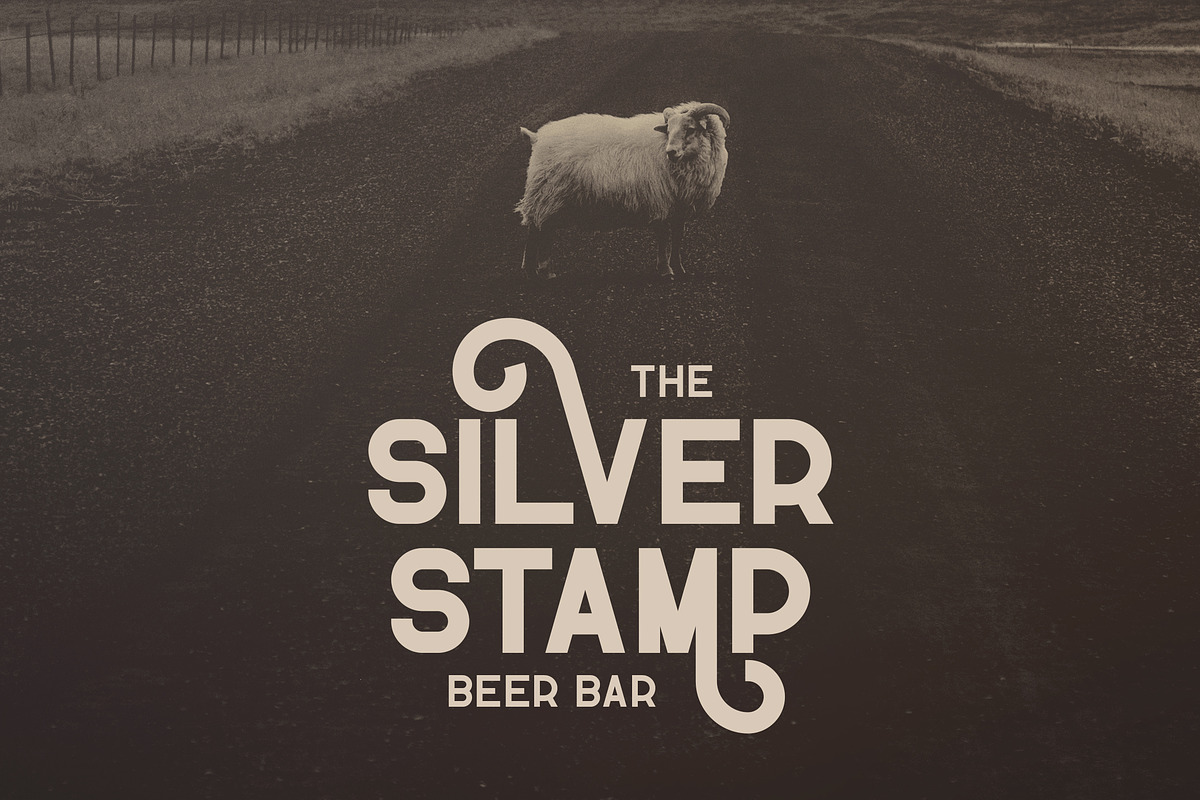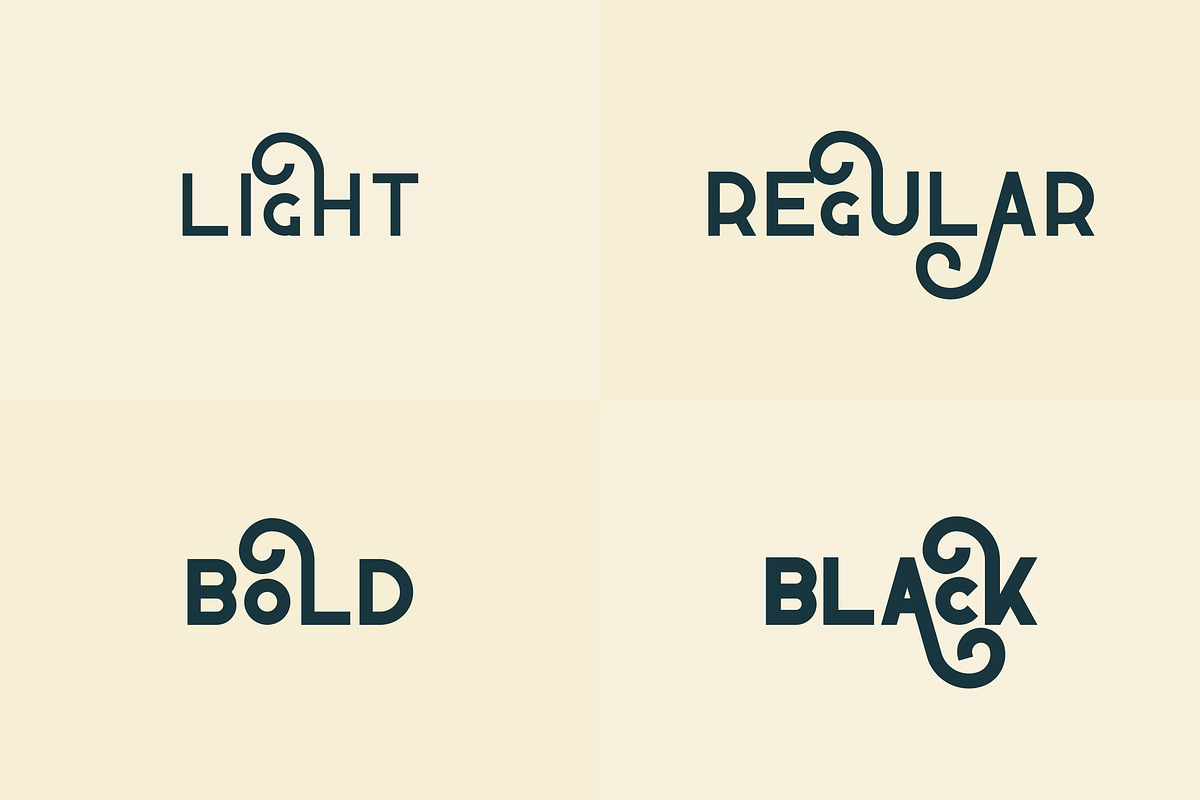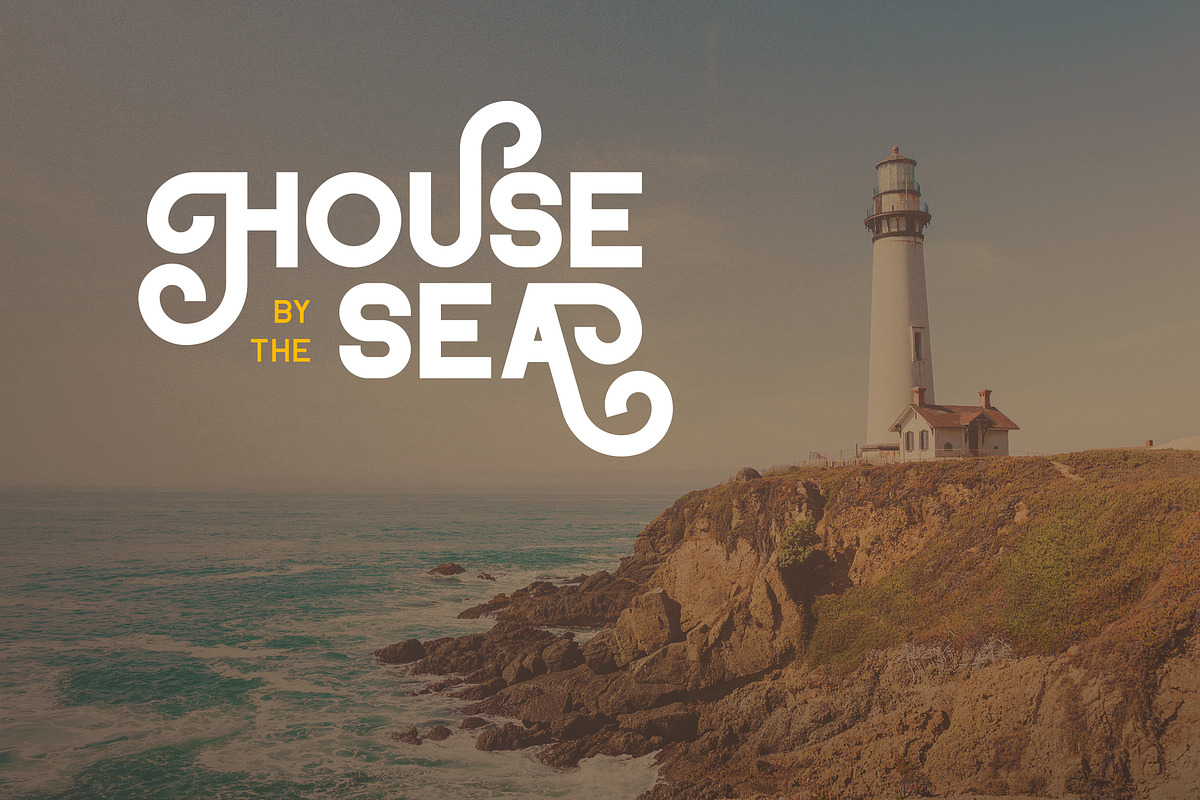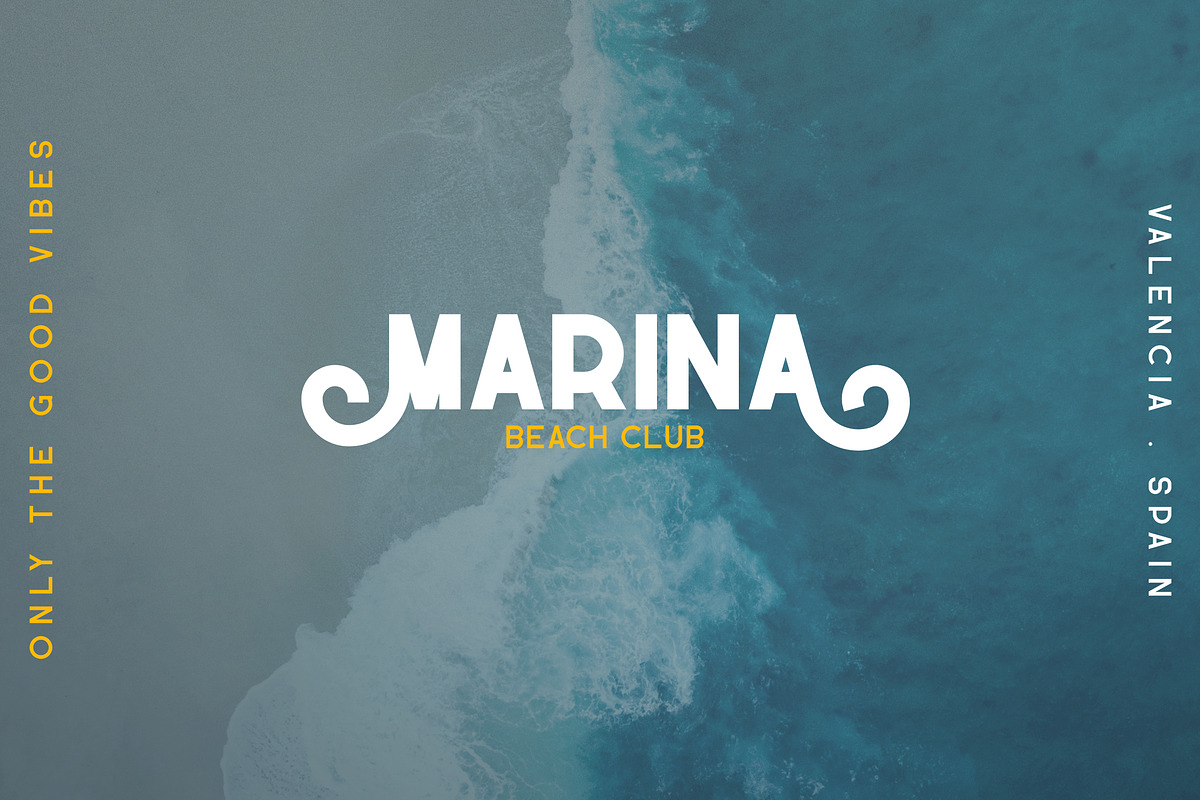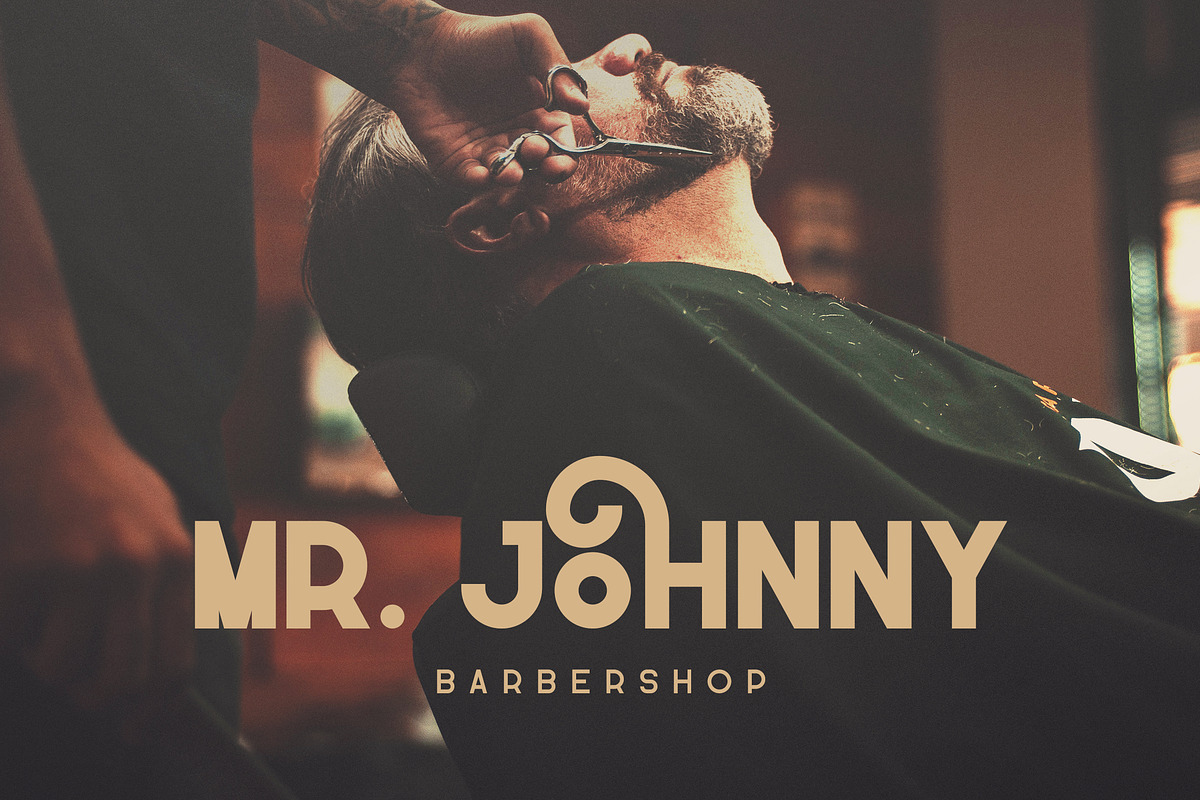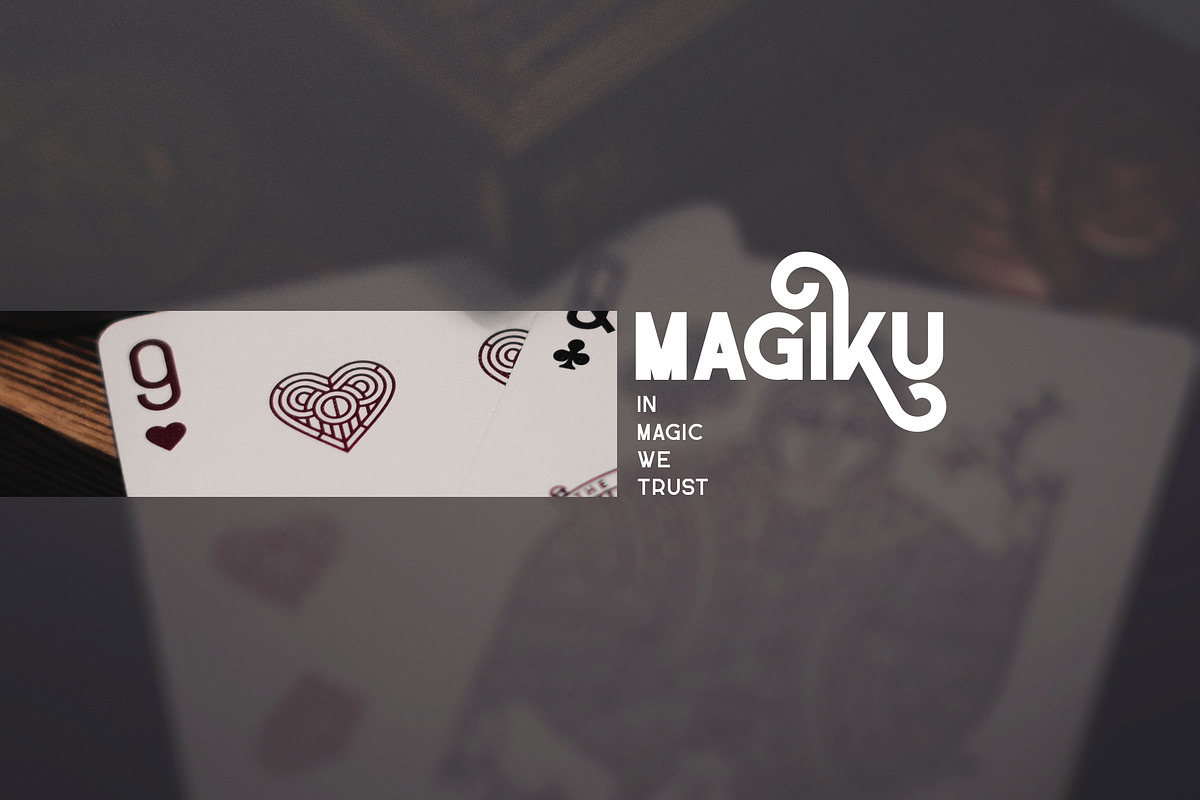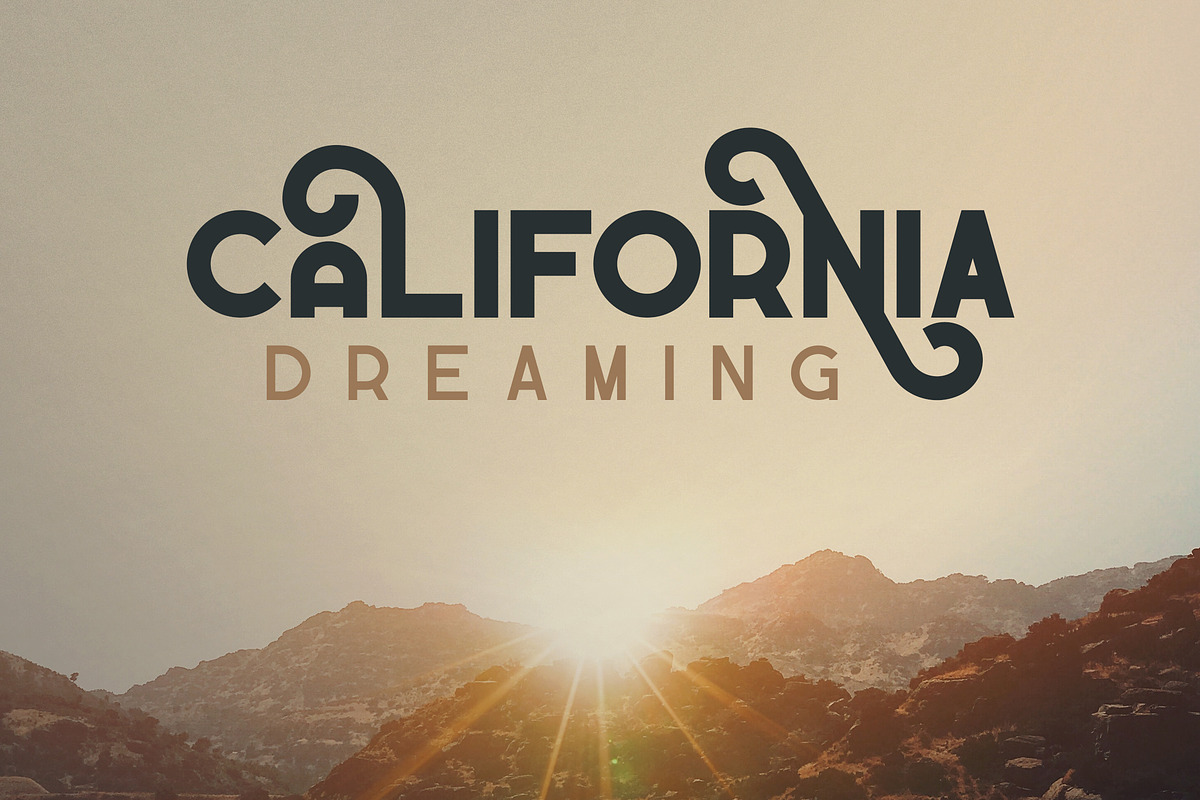
Propaganda - Vintage typeface
INTRODUCING Propaganda - Vintage typeface
Propaganda is vintage, clean and bold typeface with 4 weights, 54 alternate glyphs, tons of alternatives and multilingual support. It's a very versatile font that works great in large and small sizes.
Propaganda is perfect for branding projects, home-ware designs, product packaging, magazine headers - or simply as a stylish text overlay to any background image.
- Propaganda Light
- Propaganda Regular
- Propaganda Bold
- Propaganda Black